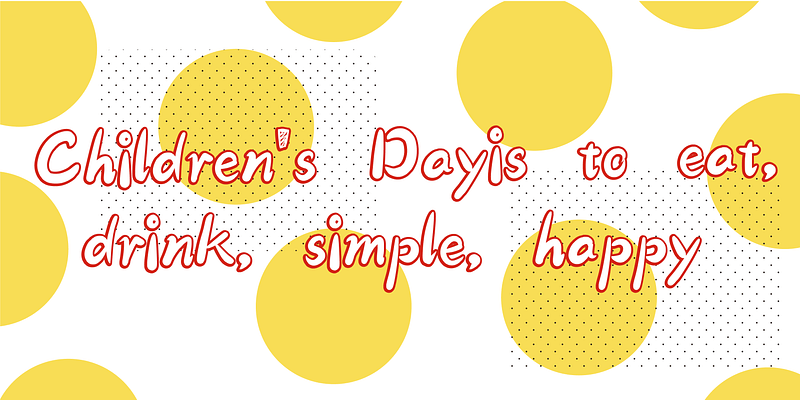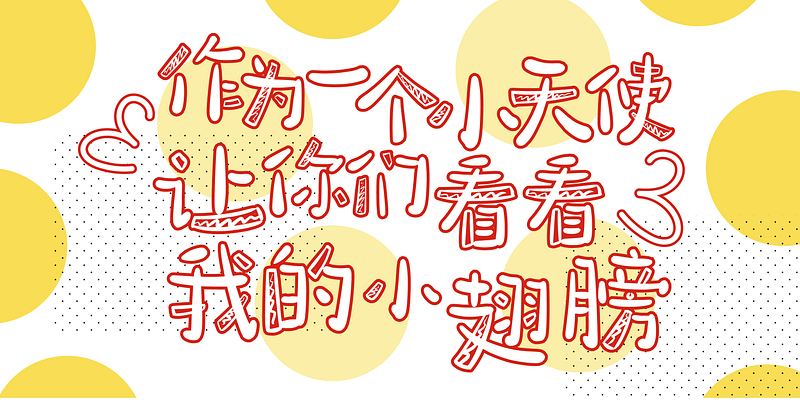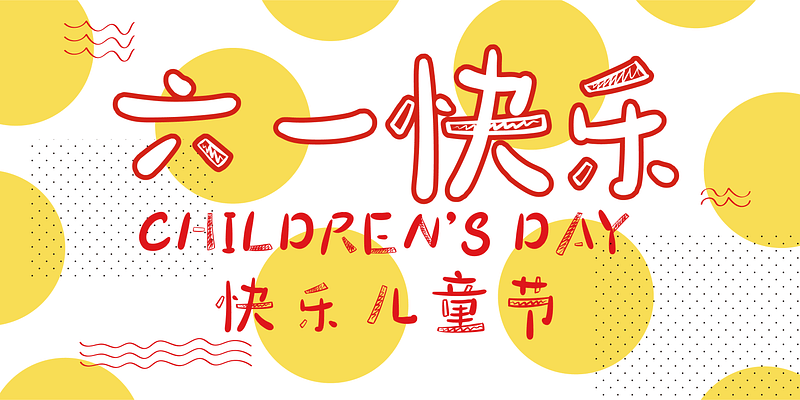
HelloFont ID TongZhiTi is compact but not abrupt and rigid, standard but characteristic. It can show three kinds of lightness changes of black, white and gray under the single tone. This font is a new form of expression of traditional Chinese characters in the form of cute and clumsy doodles .